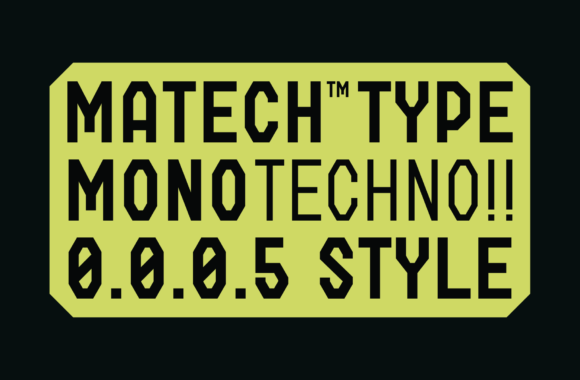
Matech Font: A Modern Monospace Techno Typeface for the Digital Age
In the realm of typography, the right font can elevate a design from ordinary to extraordinary. For those seeking a modern, versatile typeface that embodies both functionality and aesthetic appeal, Matech Monospace Techno emerges as an exceptional choice. Specifically designed for the tech and design industries, this font family offers a range of styles to suit various applications, ensuring that your text communicates with clarity and style.
Introducing Matech Monospace Techno
Matech Monospace Techno is characterized by its clean, uniform structure and geometric precision. This typeface ensures excellent readability and a sleek, contemporary appearance, making it perfect for coding environments, digital platforms, and print materials. The monospace nature of Matech means that every character takes up the same amount of horizontal space, aligning perfectly in columns and rows. This feature is particularly beneficial for coding and technical applications where precision and alignment are crucial.
The Versatility of Matech: Exploring Font Styles
The Matech Monospace Techno font family includes several styles, each designed to serve a distinct purpose while maintaining the font’s inherent characteristics. From subtle and delicate to bold and assertive, Matech offers the flexibility needed for a wide range of design projects.
Light
The Light style of Matech Monospace Techno is delicate and airy, perfect for subtle text elements where a soft touch is desired. It maintains the font’s characteristic precision while offering a lighter weight that is ideal for footnotes, captions, or any context requiring a less dominant typeface. The Light style ensures that even the smallest text elements contribute to the overall design without overpowering it.
Regular
The Regular style serves as the standard weight, offering a balanced and clear presentation. This style is suitable for body text, coding environments, and general use where a harmonious blend of readability and modern aesthetics is essential. The Regular style of Matech Monospace Techno is versatile, making it a go-to choice for everyday design needs.
Semibold
The Semibold style introduces a slightly heavier weight, adding emphasis without overwhelming the overall design. It’s perfect for subheadings, emphasized text segments, and instances where a stronger visual impact is required while still maintaining clarity and readability. The Semibold style strikes a balance between visibility and subtlety, making it an excellent choice for designers looking to add hierarchy to their text.
Bold
The Bold style offers a robust and assertive weight, making it ideal for headings, titles, and other prominent text elements. Its boldness ensures that important information stands out, capturing the reader’s attention effectively while retaining the font’s modern, tech-oriented vibe. The Bold style is perfect for those moments when you want to make a statement or draw attention to key details.
Extra Bold
Extra Bold is the heaviest weight in the Matech Monospace Techno family, providing maximum impact and visibility. This style is designed for high-emphasis elements such as banners, posters, and significant calls to action where a commanding presence is crucial. The Extra Bold style ensures that your message is not just seen but noticed and remembered.
Applications of Matech Monospace Techno
Matech Monospace Techno is adaptable to various design needs, from subtle text to standout headings. Its versatility makes it an invaluable asset for designers across multiple disciplines.
Web Design
In web design, Matech Monospace Techno can be used for coding text, interface elements, and body text. Its clean lines and modern aesthetic ensure a professional look that appeals to tech-savvy audiences. The monospace feature is particularly beneficial in coding environments, enhancing readability and efficiency.
Tech Blogging
For tech bloggers, Matech offers a way to present information with clarity and style. Whether you’re writing about the latest gadgets, software reviews, or coding tutorials, Matech ensures that your content looks contemporary and engaging. The range of styles allows for clear hierarchy and emphasis, making complex information more digestible.
Software Development
In software development, clear and readable code is paramount. Matech Monospace Techno, with its precise and uniform characters, facilitates better coding practices. Its various styles can be used to differentiate elements within the code editor or interface, enhancing the overall development experience.
Print Materials
Matech Monospace Techno is not limited to digital applications. Its sleek and modern appearance makes it suitable for print materials such as brochures, posters, and business cards, especially for tech companies or design agencies looking for a contemporary look.
Matech Monospace Techno stands out as a modern, versatile font designed to meet the demands of the tech and design industries. Its range of styles, from Light to Extra Bold, offers designers the flexibility to create visually appealing and highly readable text across various applications. Whether you’re designing a website, crafting a tech blog, or developing software, Matech Monospace Techno provides the perfect blend of functionality and aesthetic appeal. By choosing Matech, you’re opting for a typeface that embodies the spirit of modern design while ensuring clarity and professionalism in your text.